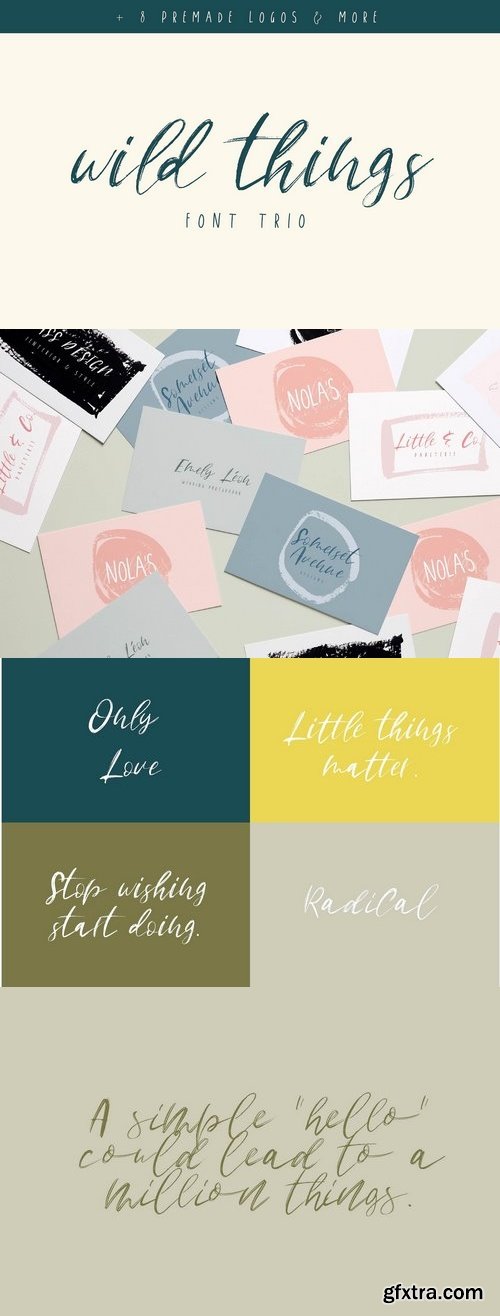
Wild Things is a handwritten font trio with character. It comes in a regular brush script style, an alternative (with more texture) style and a sans serif style to use in combination with one of the scripts. Its natural brush lettering look makes it the right fit for all kind of projects that need a "personal" handlettered touch such as logos, website graphics, social media banner and other branding essentials.